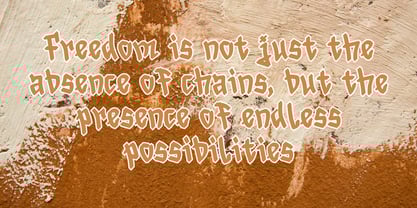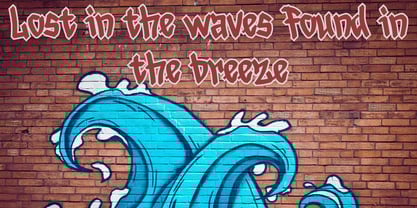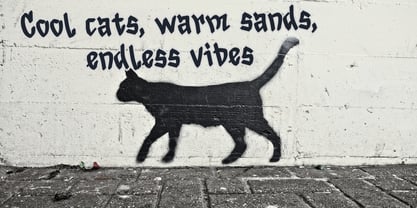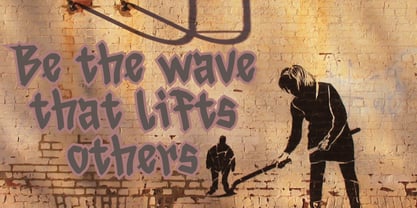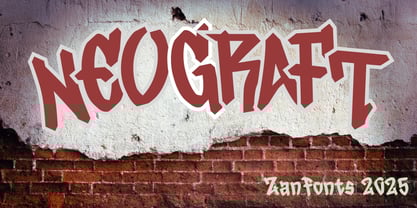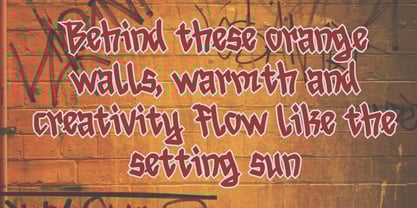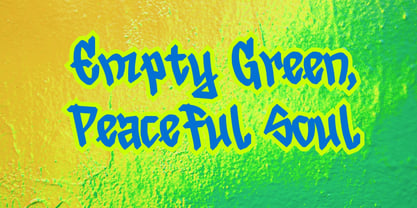
Neo Graft
by Zanfonts
The Neo Graft Font Family was designed by Ari Budi Setiawan and published by Zanfonts. Neo Graft contains 1 styles.
NeoGraft – A Bold Graffiti Typeface with Urban Attitude
Unleash creativity with NeoGraft, a graffiti-inspired typeface that captures the raw energy of street art and urban culture. Designed for designers and brands looking for an edgy, expressive, and rebellious font, NeoGraft features dynamic letterforms with fluid strokes, giving your projects a bold, handcrafted feel.
Whether you’re designing posters, album covers, streetwear branding, social media graphics, or urban-themed merchandise, NeoGraft brings authenticity and attitude to the table. Its unique blend of spray-paint aesthetics, bold brush strokes, and rough edges makes it perfect for projects that demand attention and creativity.
Neo Graft